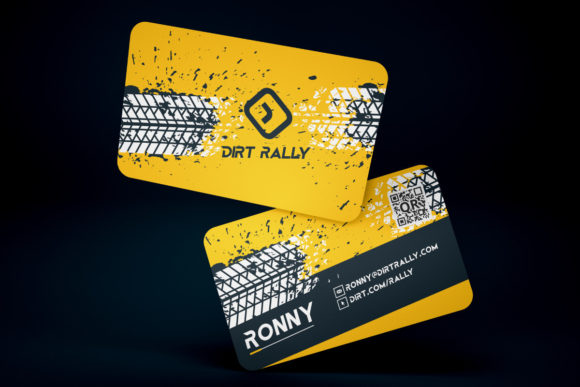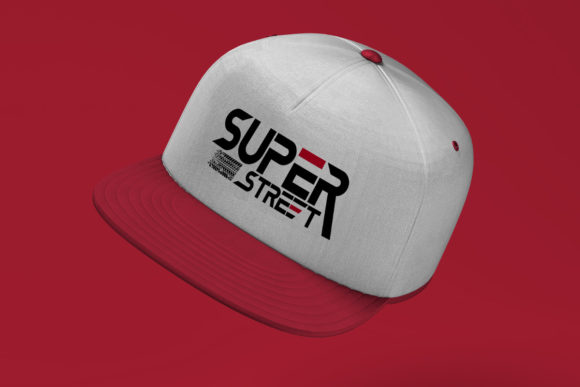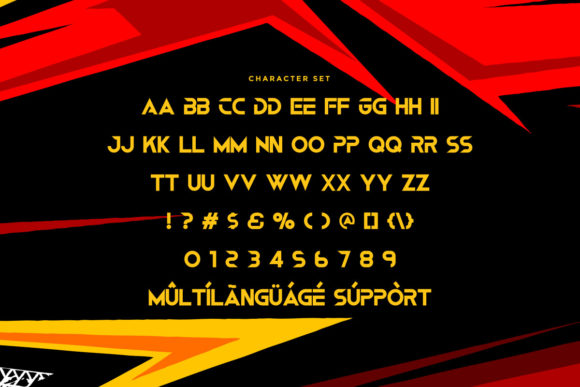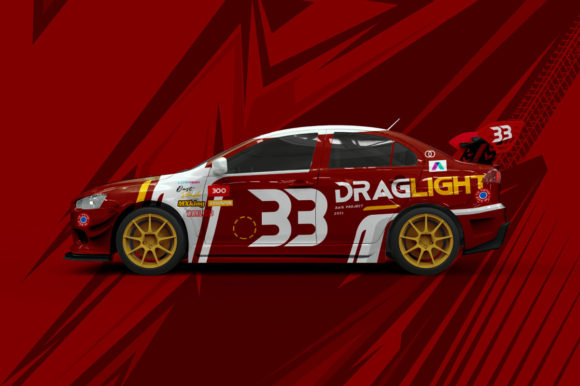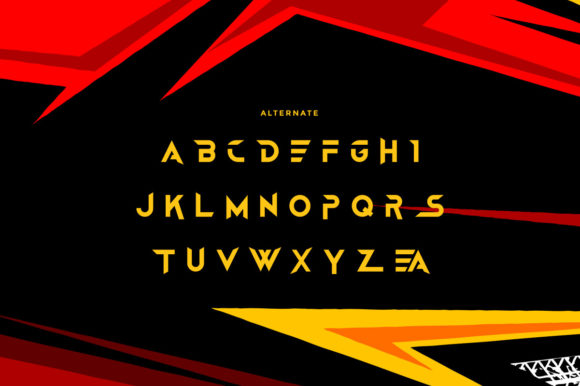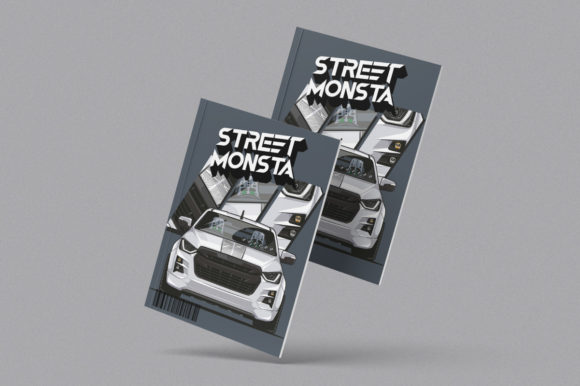
Introducing Dragraces Font: The Ultimate Bold, Futuristic, and Cool Display Font
Are you a designer or crafter looking for a font that can add a touch of futurism and coolness to your designs? Look no further than Dragraces Font! This bold, futuristic, and cool display font is perfect for creating stunning food menus, posters, flyers, and prints that will grab attention and leave a lasting impression.
What is Dragraces Font?
Dragraces Font is a carefully crafted display font that boasts a unique and futuristic design. Its bold and cool appearance makes it perfect for designers and crafters who want to add a touch of edginess to their designs. Whether you’re working on a food menu, poster, flyer, or print, Dragraces Font is sure to make your design stand out from the crowd.
Key Features of Dragraces Font
- Bold and Futuristic Design: Dragraces Font features a bold and futuristic design that is sure to grab attention.
- Cool Display Font: This font is perfect for creating stunning displays that will leave a lasting impression.
- Highly Versatile: Dragraces Font can be used for a wide range of design projects, including food menus, posters, flyers, and prints.
- Easily Readable: Despite its bold and futuristic design, Dragraces Font is easily readable, making it perfect for use in a variety of design projects.
Endless Possibilities with Dragraces Font
One of the best things about Dragraces Font is its endless possibilities. This font can be used for a wide range of design projects, including:
- Food Menus: Add a touch of futurism and coolness to your food menu with Dragraces Font.
- Posters: Create stunning posters that will grab attention and leave a lasting impression.
- Flyers: Use Dragraces Font to create eye-catching flyers that will stand out from the crowd.
- Prints: Add a touch of edginess to your prints with Dragraces Font.
Why Choose Dragraces Font?
So, why choose Dragraces Font for your design projects? Here are just a few reasons:
- Unique and Futuristic Design: Dragraces Font features a unique and futuristic design that will set your designs apart from the crowd.
- Highly Versatile: This font can be used for a wide range of design projects, making it a great addition to any designer’s toolkit.
- Easily Readable: Despite its bold and futuristic design, Dragraces Font is easily readable, making it perfect for use in a variety of design projects.
In conclusion, Dragraces Font is a bold, futuristic, and cool display font that is perfect for designers and crafters who want to add a touch of edginess to their designs. With its unique and futuristic design, highly versatile nature, and easily readable appearance, Dragraces Font is sure to become a staple in any designer’s toolkit. So why wait? Download Dragraces Font today and explore its endless possibilities!
Whether you’re working on a food menu, poster, flyer, or print, Dragraces Font is the perfect choice. Its bold and cool appearance is sure to grab attention and leave a lasting impression. So, what are you waiting for? Get creative with Dragraces Font and take your designs to the next level!